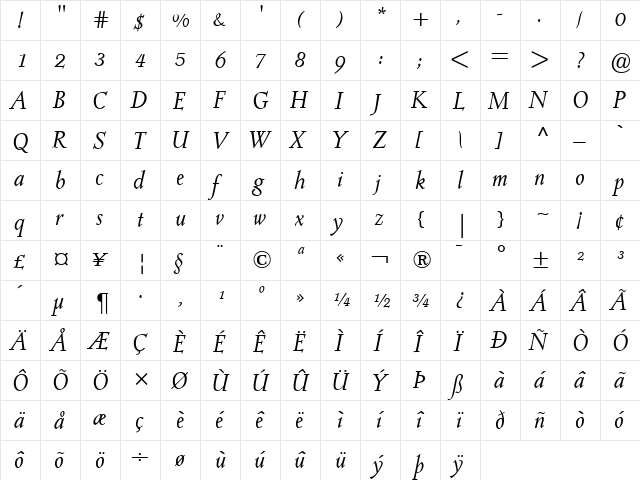
Post Mediaeval Italic
Italic · Adobe Systems Incorporated  ·
Design Context for Post Mediaeval Typeface
Post Mediaeval offers clean, dependable letterforms without strong stylistic allegiance, making it a practical choice for designers who need flexibility. The dynamic lean of this cut emphasises speed and emphasis in any layout.
Pro Tip: Use Post Mediaeval for emphasis, pull quotes, and subheadings where its slanted energy can add rhythm to the layout.